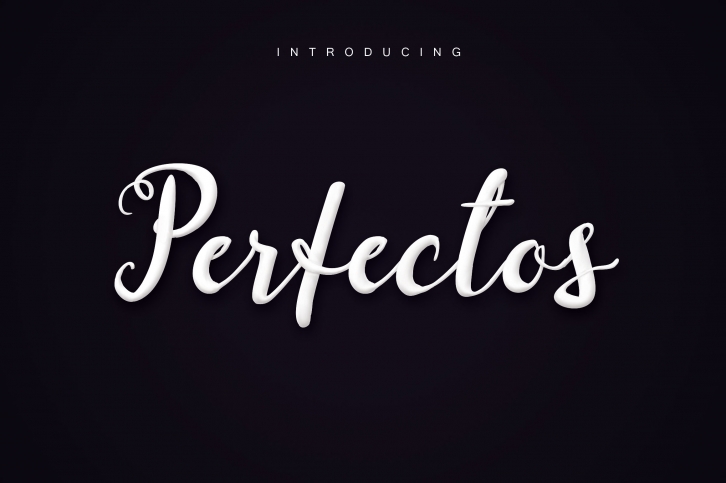
Perfectos Script is a beautiful font that was designed by Royaltype. It's a great choice for designers and creatives who need such a font. It was released on August 6, 2017 and the file size is 12.8 MB. Perfectos Script may give a more youthful, expressive and casual look to your project. It is a very beautiful, refined, elegant, and high-quality font.